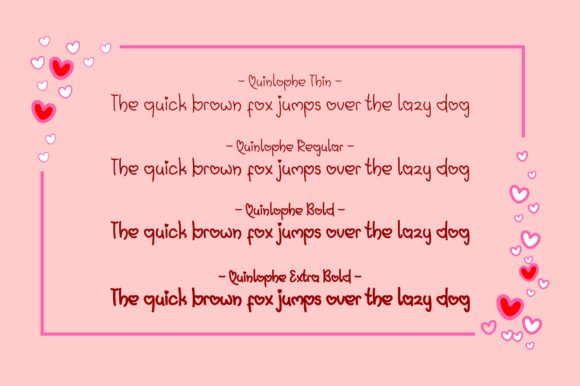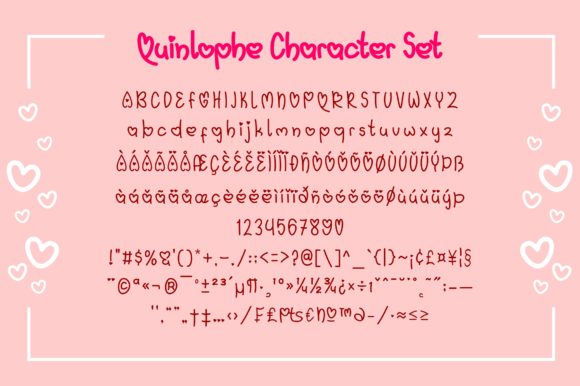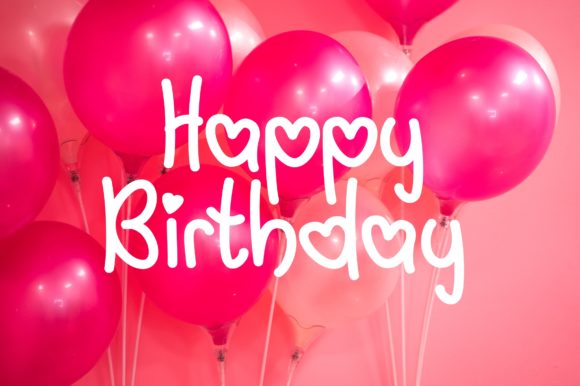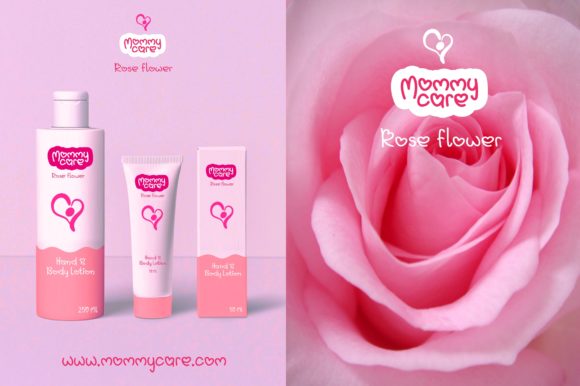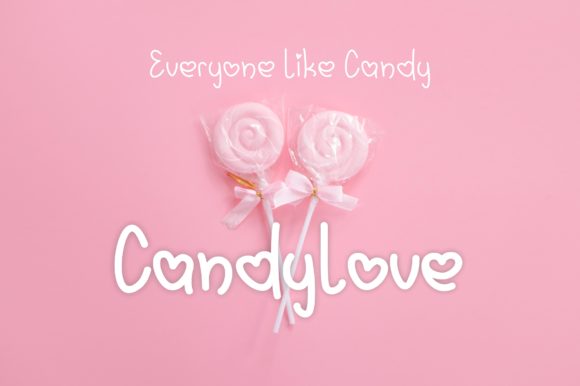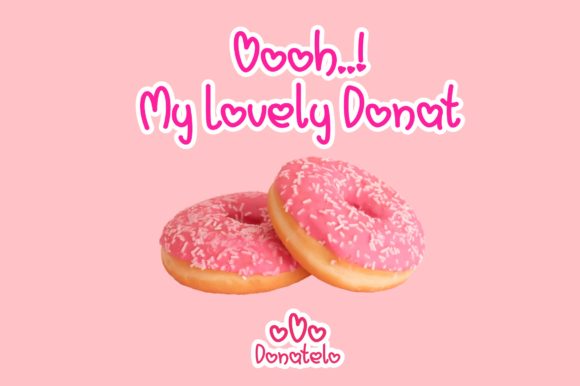
Introduction to Quinlophe Font
Quinlophe is a cute and sweet display font.
It will add a romantic touch to your designs It’s perfect for logos, stationery, branding, social media posts and much more.